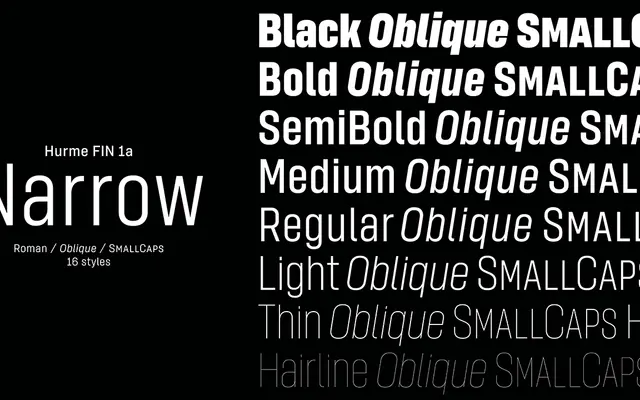
Hurme FIN 1a Narrow
A simplified monolinear grotesque in the Narrow width cut of a vast nine-width, eight-weight family from Hurme Design.
Part of the Hurme FIN 1a system, this Narrow variant offers eight weights from Hairline to Black, each with a matching optically adjusted oblique, giving 16 styles in total. The design features horizontal stroke terminals, short ascenders and descenders, and an x-height that increases proportionally as widths narrow. An alternate character set, FIN 1b, is included free of charge and introduces angular, monospace-inspired letterforms with slab serifs.
Described by the foundry as a simplified monolinear sans-serif with horizontal stroke terminals, placing it squarely in the grotesque tradition. The monolinear stroke construction and large compressed-to-expanded design space reinforce this classification.